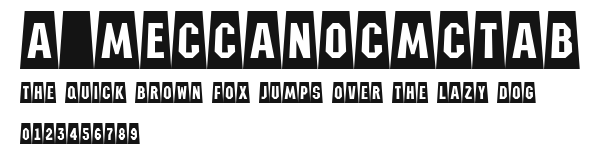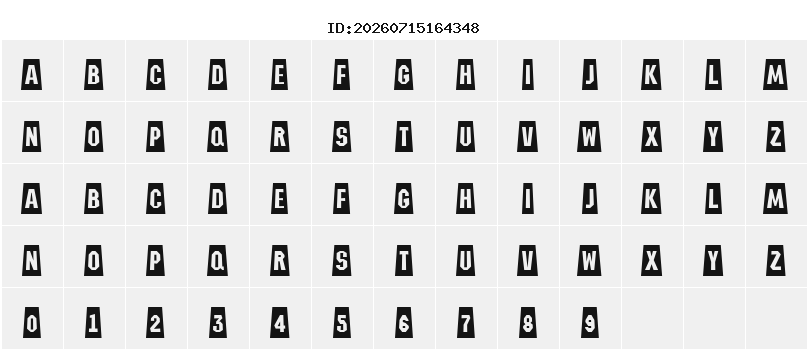
a_MeccanoCmCtAb Preview
• Font Name: a_MeccanoCmCtAb
• Font ID: ArsenalCompany: a_MeccanoCameoCutAbove: 1999
• Full Font Name: a_MeccanoCameoCutAbove
• Version: Version 1.0; 1999; initial release
• PostScript Name: a_MeccanoCmCtAb
• Character Count: 302
• Designer: W.Chufarofsky & M.Slutsker
About a_MeccanoCmCtAb.ttf
a_MeccanoCmCtAb.ttf is a modern, elegant sans-serif font designed for ultimate readability and visual harmony. Perfect for branding, headlines, web design, and print materials.